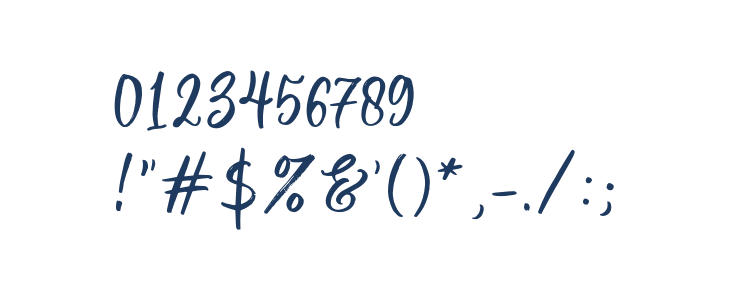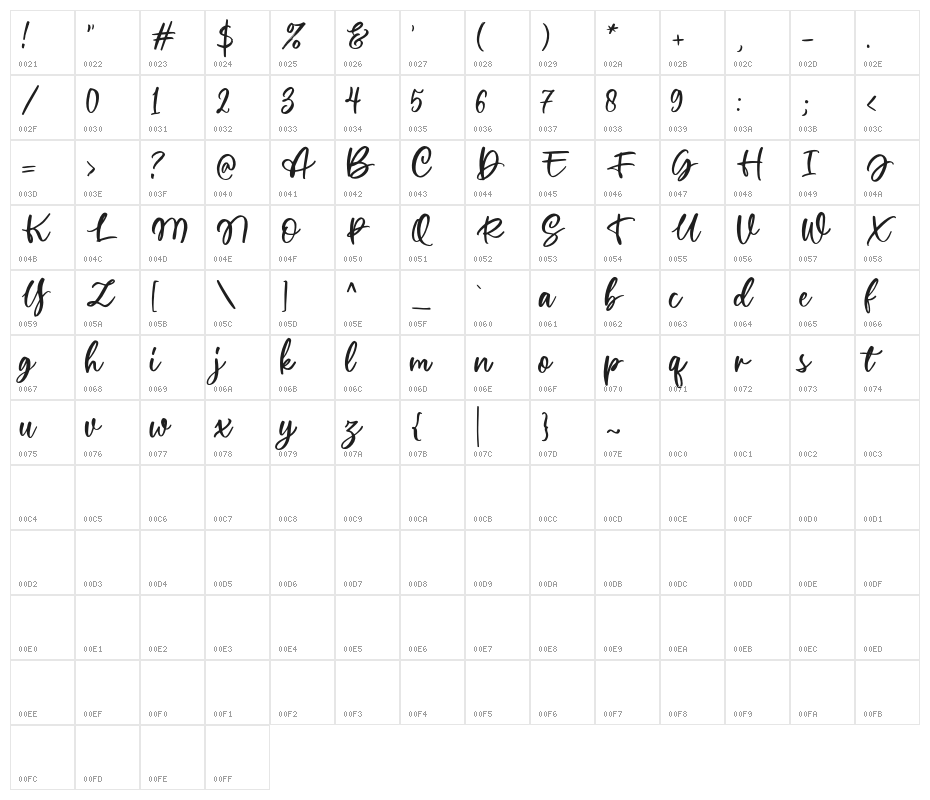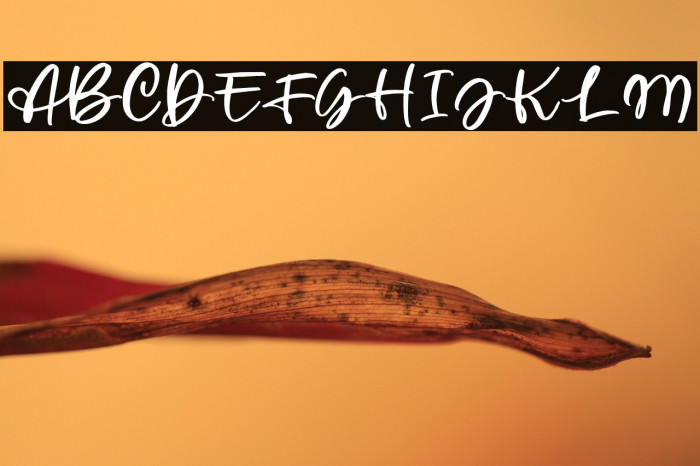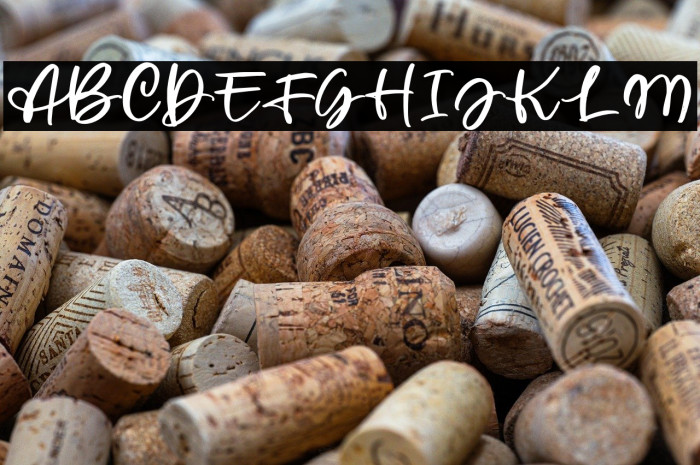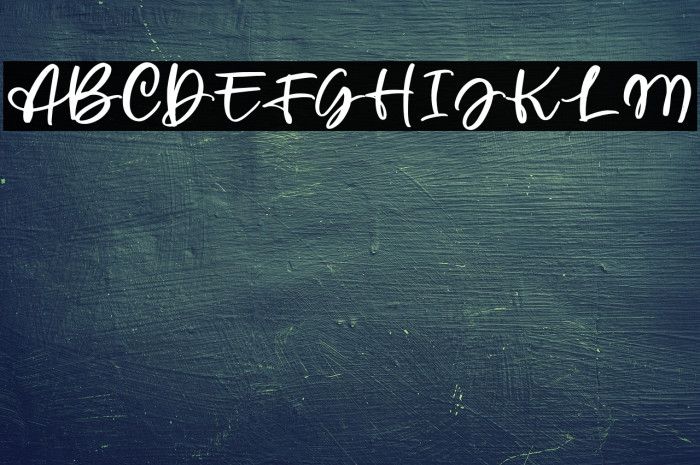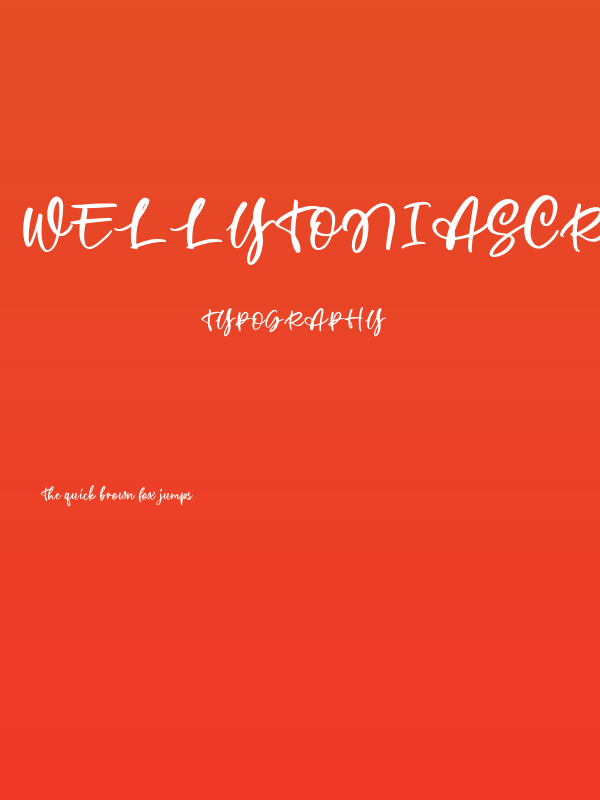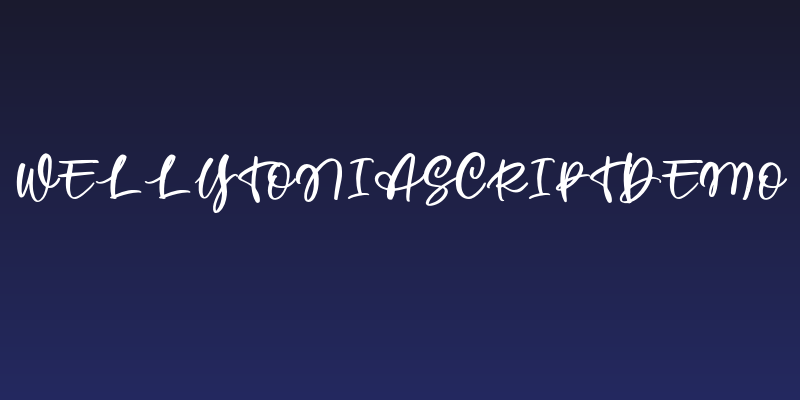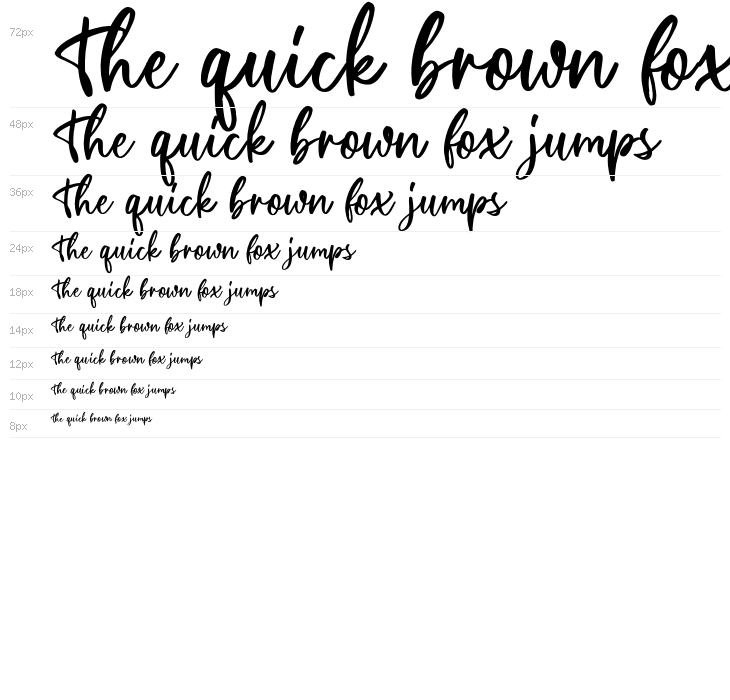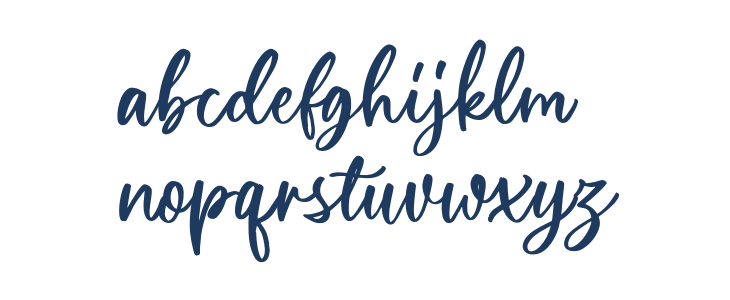
WellytoniaScriptDEMO Font
WellytoniaScriptDEMO Description
This script font exudes a lively and dynamic character, with its fluid and interconnected strokes that mimic the natural flow of handwriting. The uppercase letters are bold and expressive, featuring elegant loops and curves that add a touch of sophistication. The lowercase letters maintain a consistent rhythm, with smooth transitions between each character, enhancing readability while retaining an artistic flair. The numerals are well-integrated, matching the overall style with their rounded and slightly tilted forms. Special characters are thoughtfully designed, maintaining the font's cohesive aesthetic. This font is perfect for projects that require a personal and creative touch, such as invitations, branding, and social media graphics.